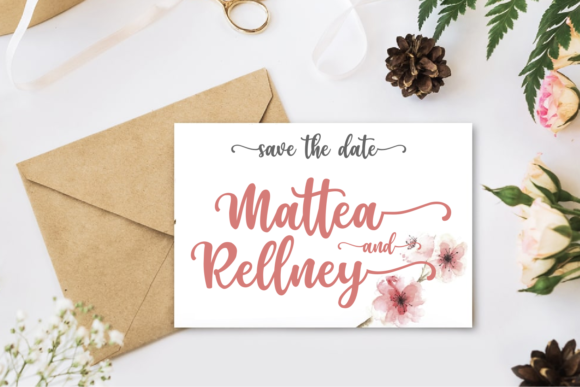
Cherry Blossom Font Font
db-ku.com - Script & Handwritten -- Cherry Blossom is a lovely trio font (sans serif, script and dingbats). Expertly designed to make your creation look out of this world, this font will look gorgeous on a variety of ideas. Cherry Blossom is PUA encoded which means you can access all of the glyphs and swashes with ease!